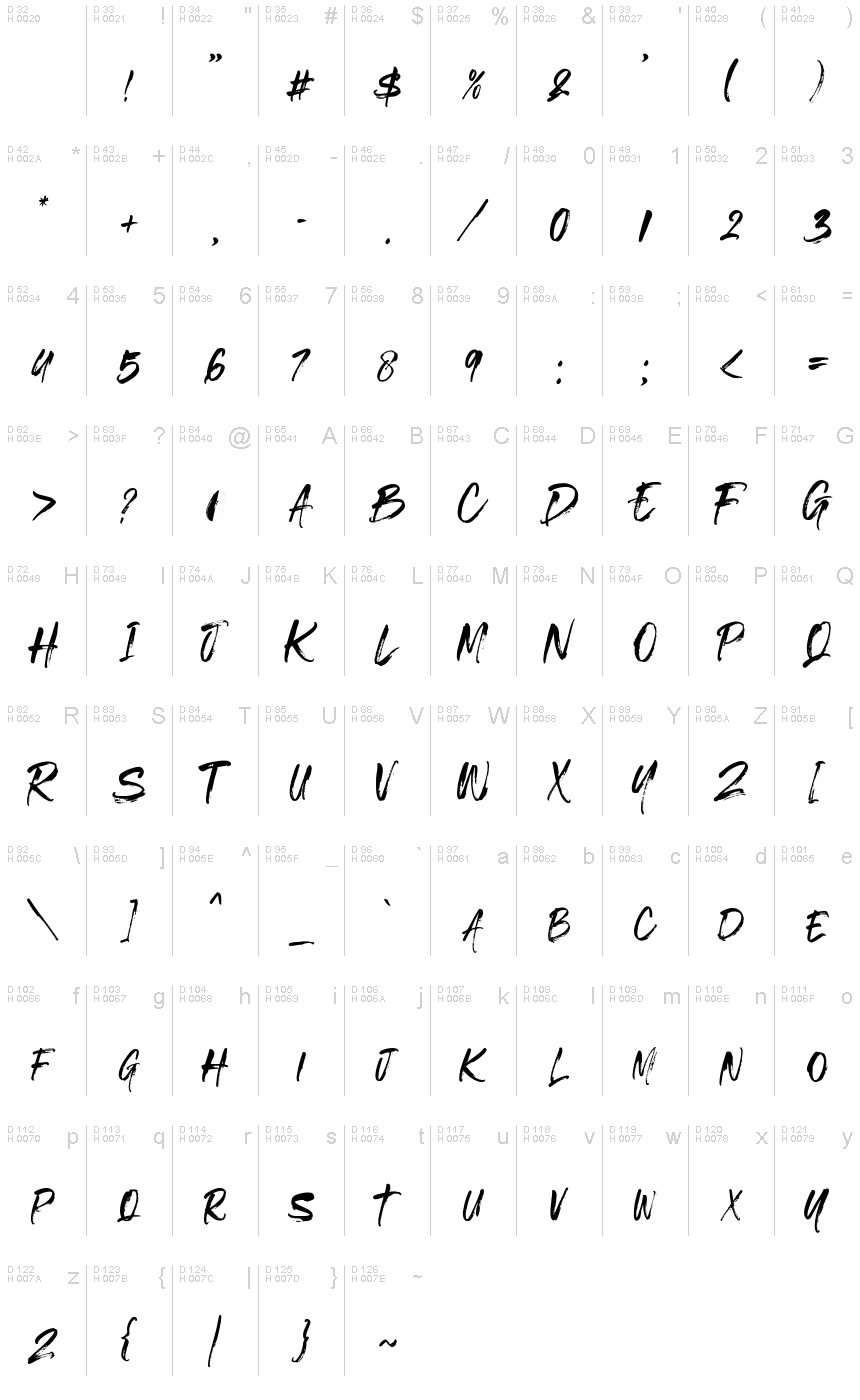
Wild Favour Regular
Wild Favour font captures the free-spirited essence of brush lettering, showcasing a dynamic blend of bold strokes and fluid movements. Designed by Damarletter, its expressive style is characterized by dramatic, sweeping curves and a vividly artistic flair that brings text to life. The overall aesthetic is playful yet sophisticated, making it ideal for creative projects.
With its striking presence, Wild Favour effortlessly enhances invitations, branding materials, and social media graphics by adding an element of individuality and warmth. Whether aiming for an elegant appeal or a casual vibe, this font adapts gracefully across various design contexts. Wild Favour invites viewers to connect through its authentic charm while providing the perfect canvas for creativity.